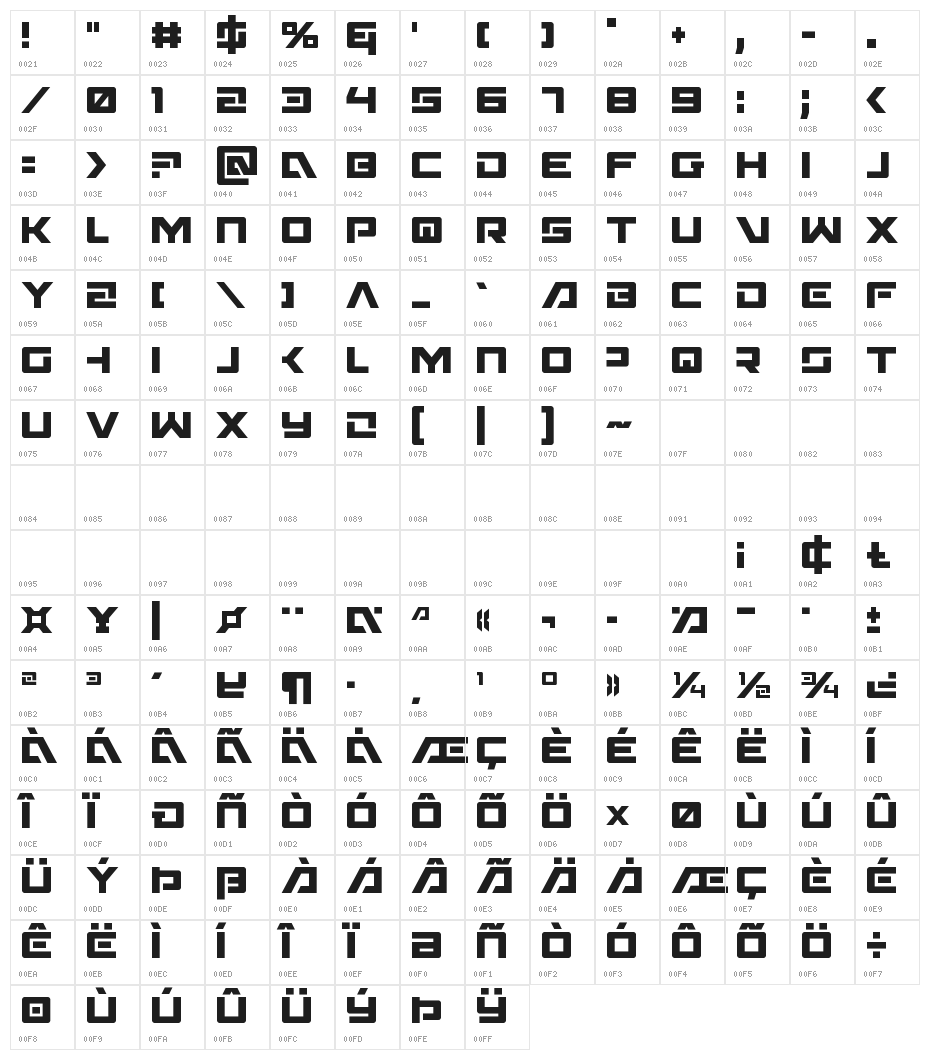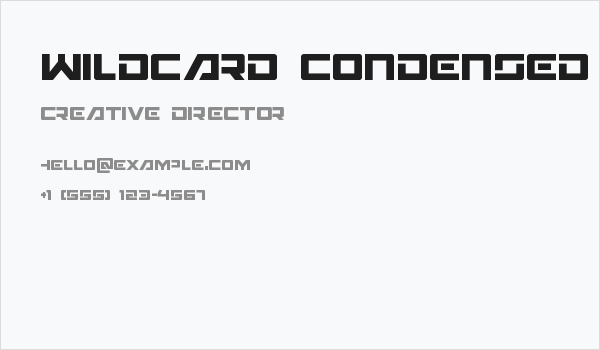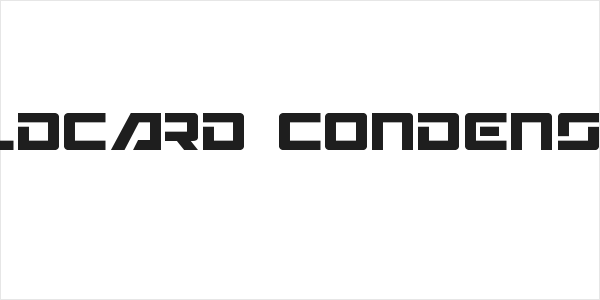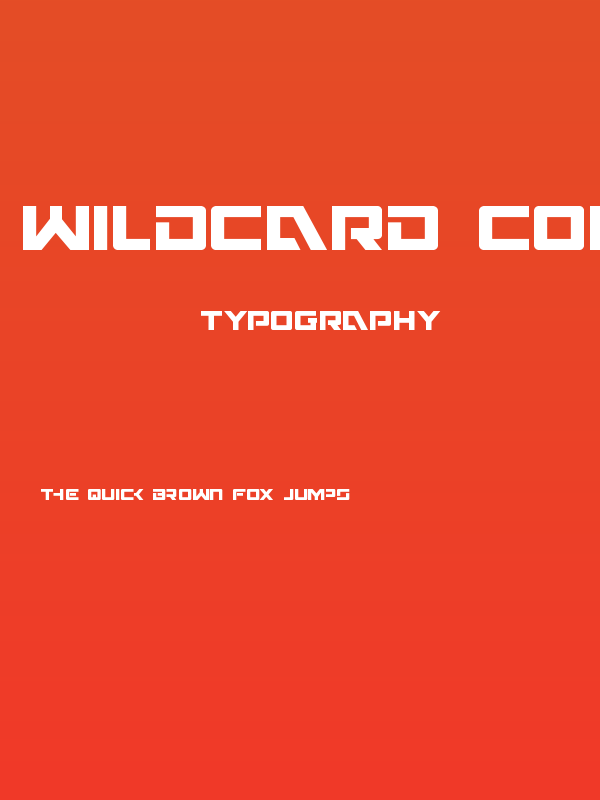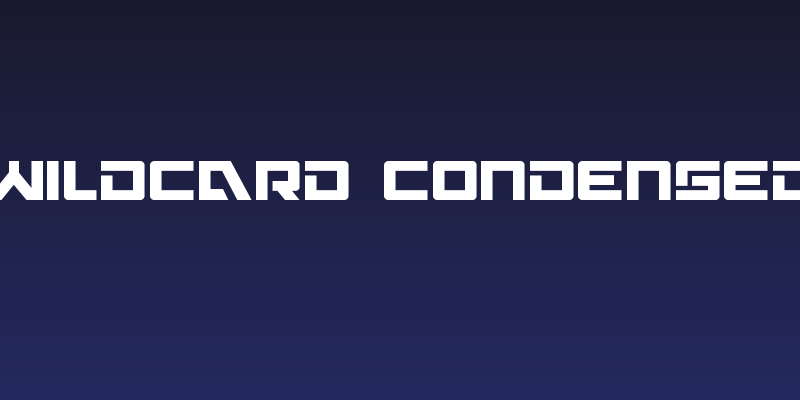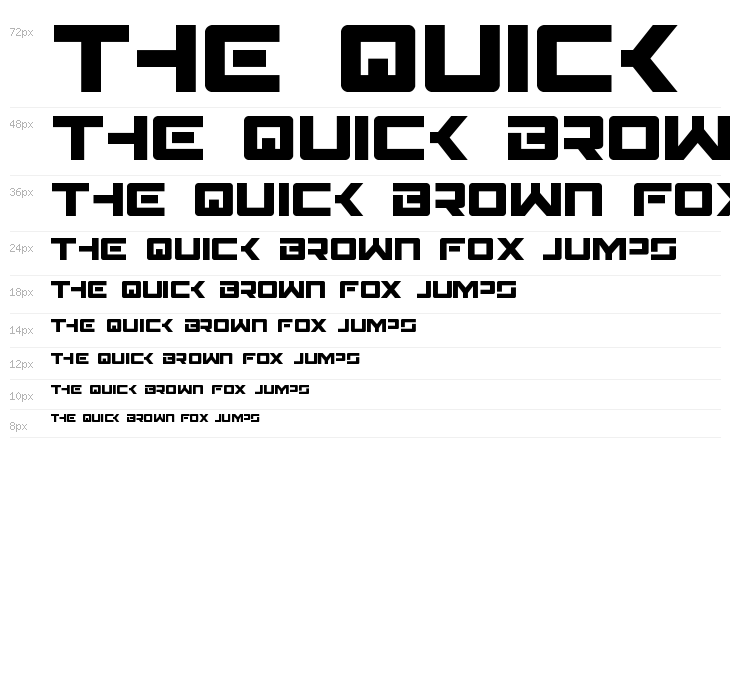
Wildcard Condensed Font
Wildcard Condensed Description
This font features a bold, geometric design with a futuristic and digital aesthetic. The characters are constructed with sharp angles and straight lines, giving it a distinctly modern and technological feel. The uppercase letters are uniform in height, while the lowercase letters maintain a consistent style, ensuring readability. The numbers and special characters are designed to match the overall angular theme, making them stand out with their unique shapes. This font is ideal for projects that require a strong, impactful look, such as technology branding, video game titles, or sci-fi themed designs.
Proposed ProjectsIdeal for technology branding, video game titles, sci-fi themes, and digital media.